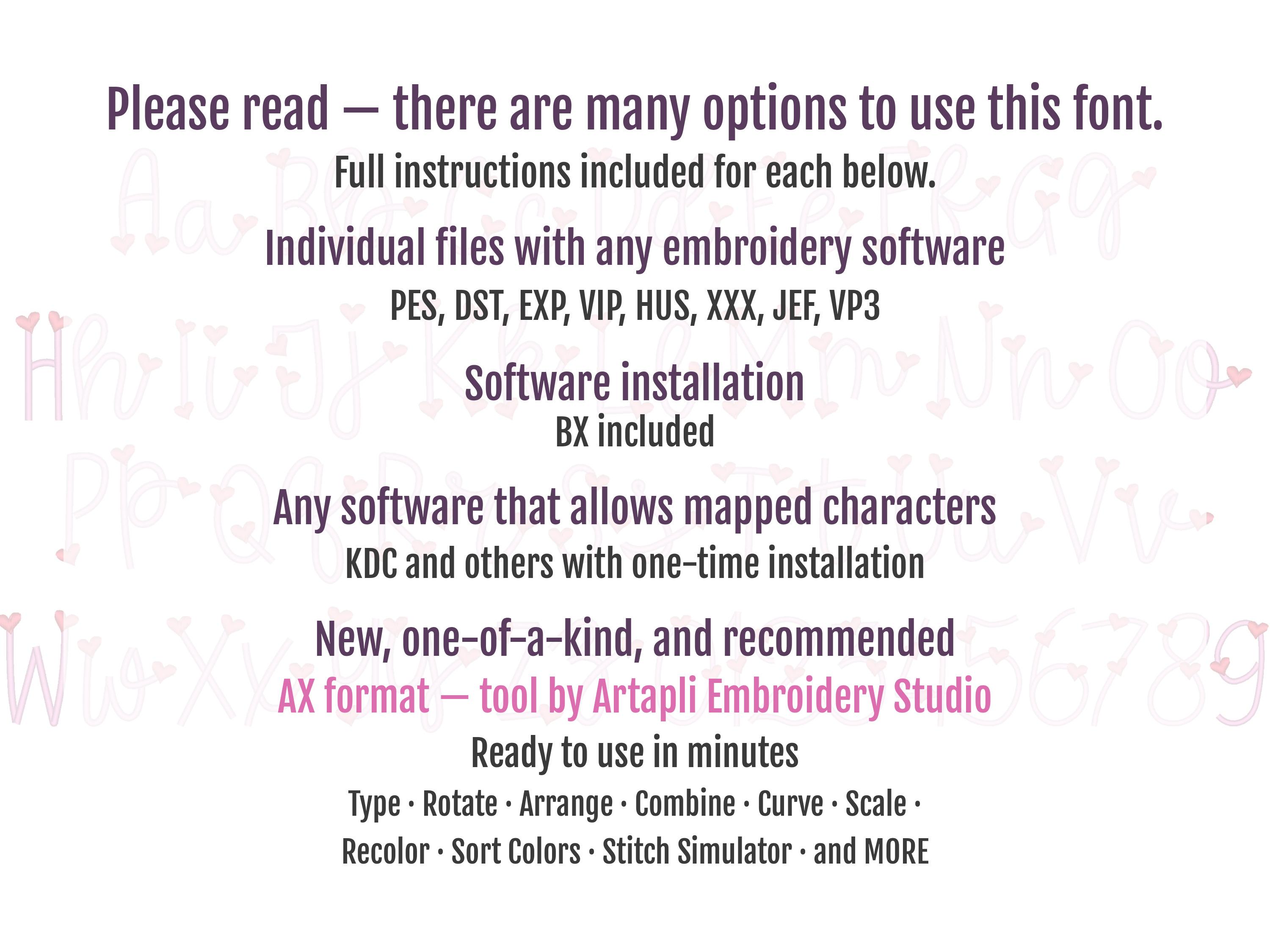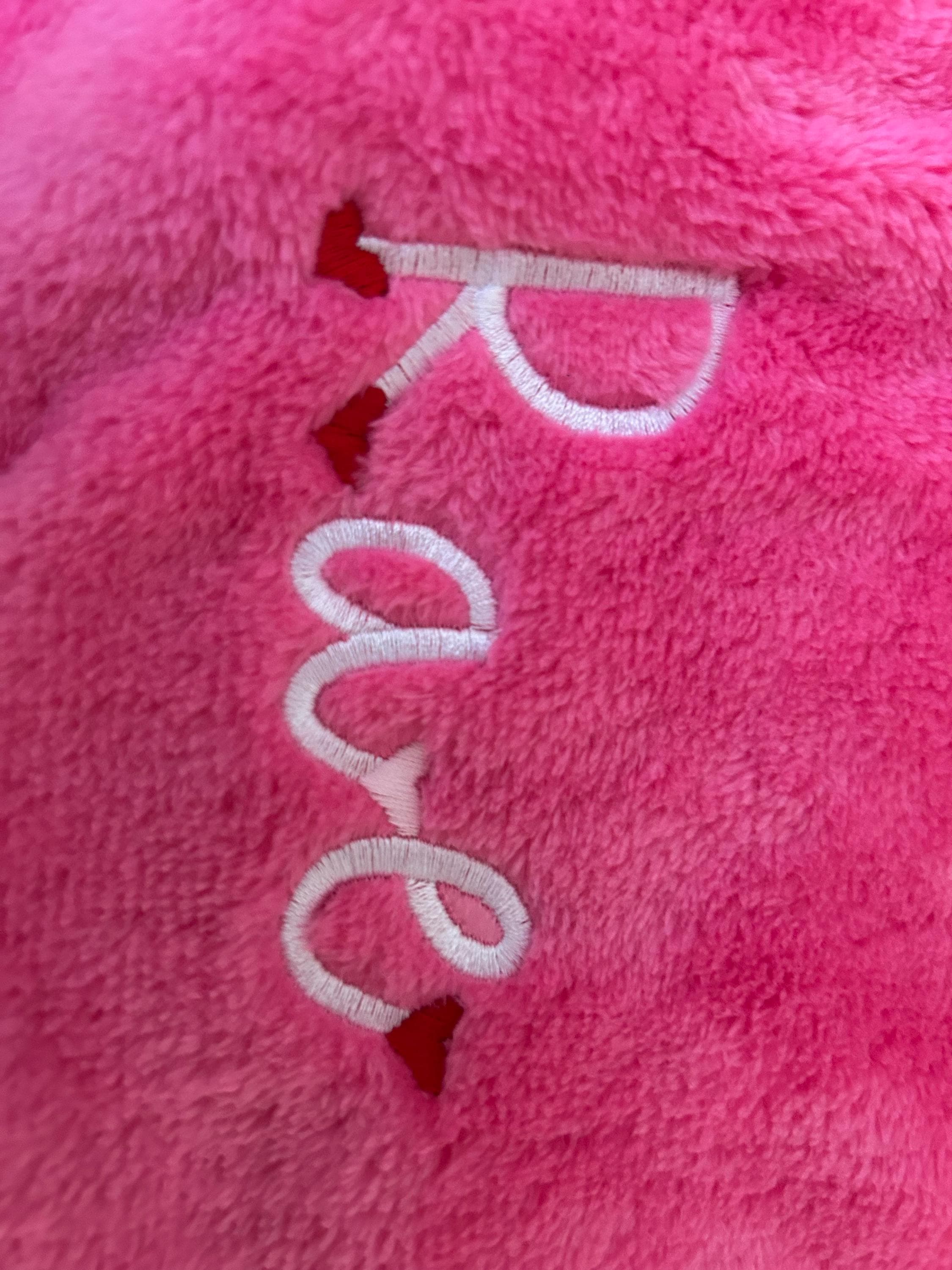
Hearts Satin Thin Line FONT machine embroidery designs in assorted mini sizes, handwritten script font alphabet letters kids name BX incl
Whole alphabet: uppercase and lowercase letters, numbers
Great product! It looked adorable on holiday outfits!
Design was used on a baby blanket to stitch out the baby's name. It came out beautifully!
SUper cute font. A little more labor intensive for my single needly machine as you have to switch between colors for each letter, but turned out nicely.
The font stitching is perfect!